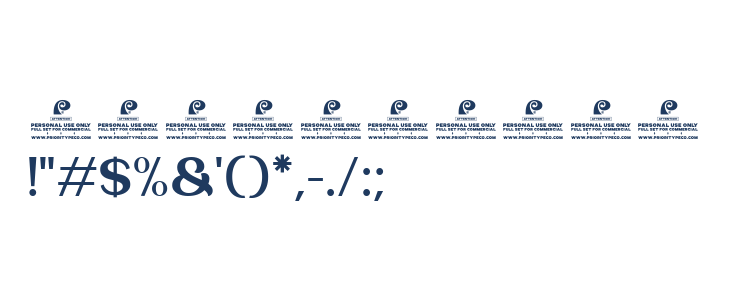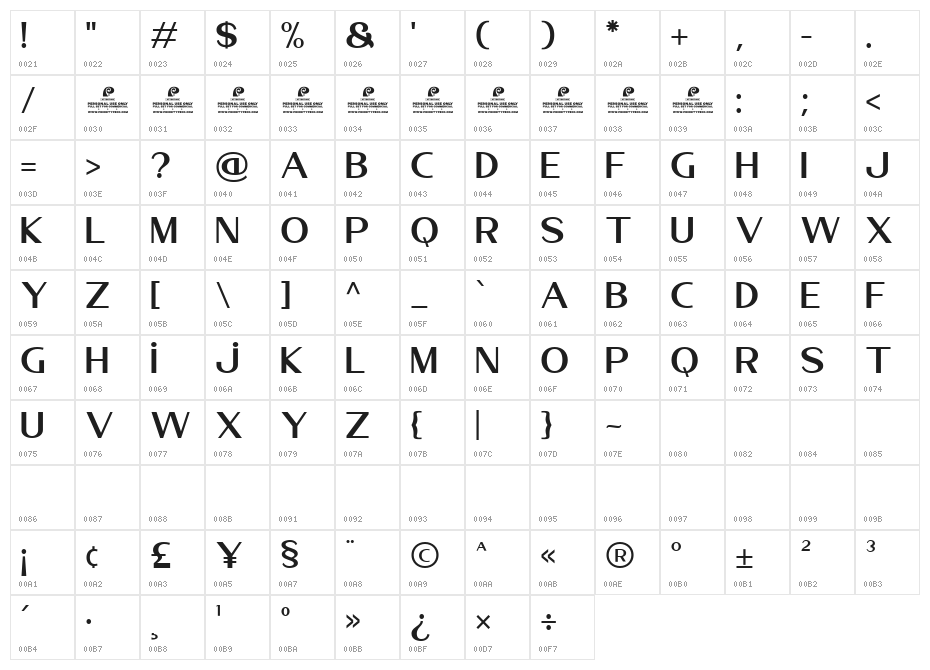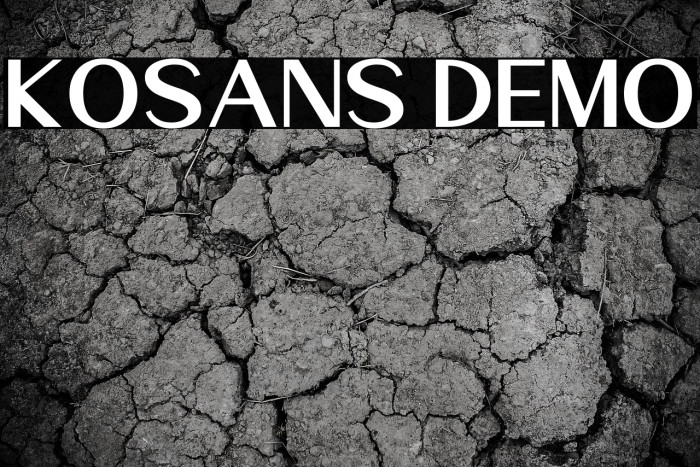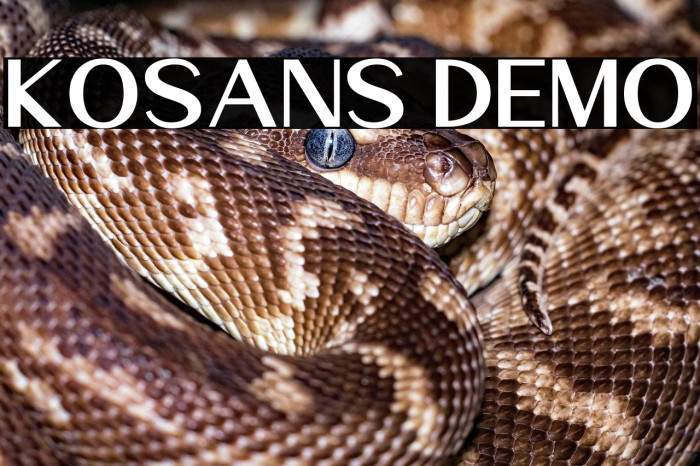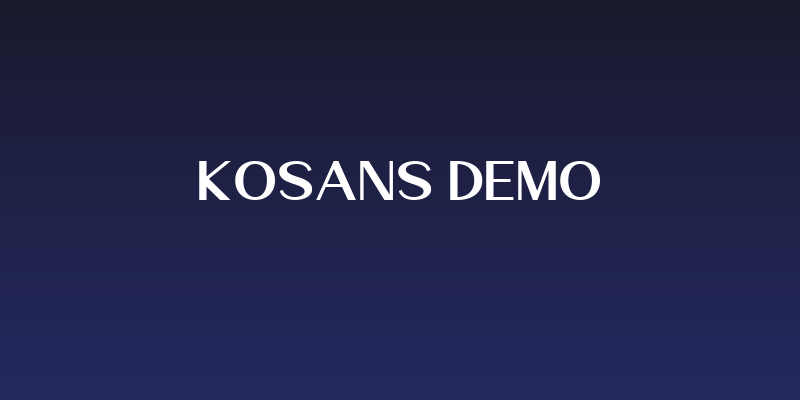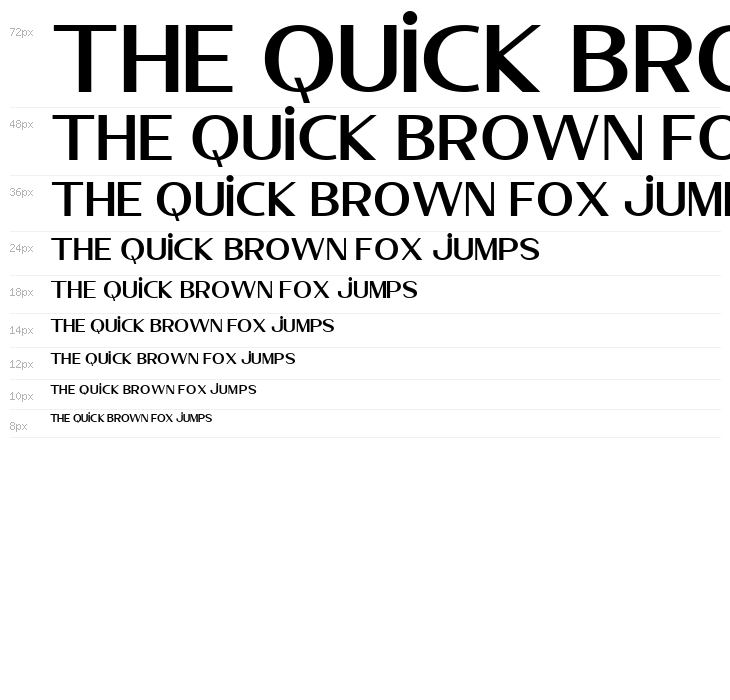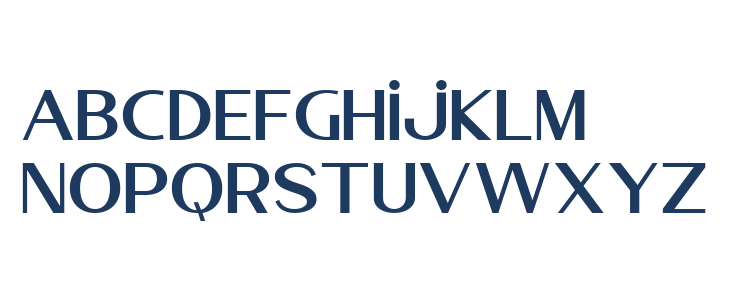
Kosans DEMO Font
Kosans DEMO Description
This font features a clean and modern sans-serif style with a strong geometric influence. The characters are bold and well-defined, offering excellent readability. The uppercase letters are uniform in height, while the lowercase letters maintain a consistent baseline, contributing to a cohesive appearance. The numbers are clear and distinct, matching the overall aesthetic of the alphabet. Special characters are included, providing versatility for various uses. The font's design is suitable for both digital and print media, ensuring it stands out in headlines and logos.
| Proposed Projects | Ideal for branding, advertising, headlines, and digital media projects. |